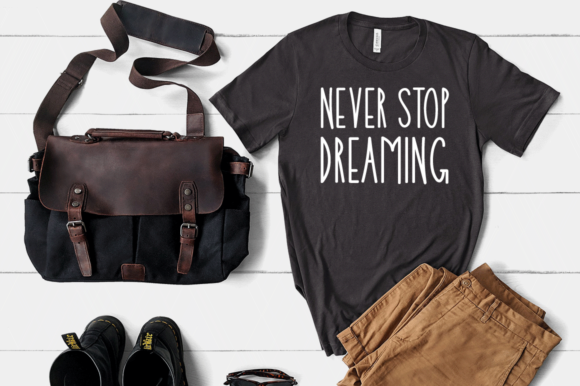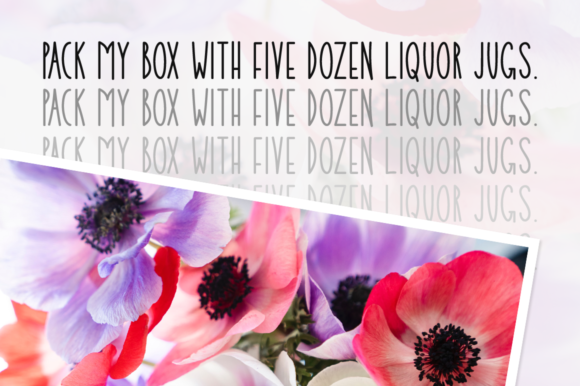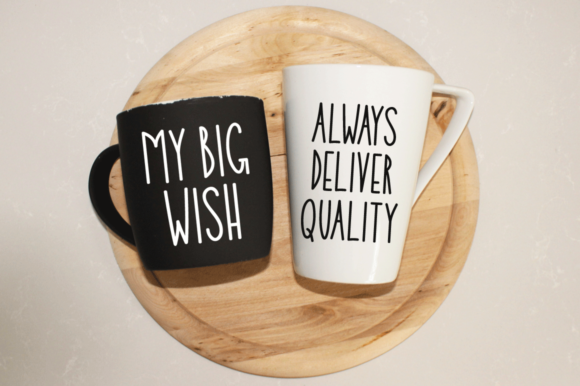
Introduction to Fresh Anemone Font
Have you ever found yourself staring at a blank design canvas, struggling to bring your creative vision to life? That’s where the magic of a high-quality font comes in – like the charming Fresh Anemone Font. This delightful display font has the power to transform your design project into a masterpiece, adding an extra layer of joy and whimsy to every detail.
As a valuable design resource, the Fresh Anemone Font is perfect for designers looking to add a unique touch to their creative projects. With its transparent background and PUA encoding, you’ll have access to a wide range of glyphs and ligatures that will take your designs to the next level. Whether you’re working on a digital or print project, this free download is sure to be a game-changer.
So why settle for a generic font when you can elevate your design with the Fresh Anemone Font? This font is a must-have for any designer looking to add a little extra magic to their work.
Key Features of Fresh Anemone Font
- High-quality design resource ideal for creative projects, offering a unique touch to your work.
- Available in a transparent background, allowing for seamless integration into your design.
- Features a beautiful, hand-drawn design that adds a touch of elegance to any project.
- Perfect for use in digital and print projects, including logos, posters, and more.
Honest Review: Fresh Anemone Font
As a designer, I’m always on the lookout for high-quality design resources to enhance my creative projects. The Fresh Anemone Font caught my eye due to its unique and playful style.
- ✨ Unique and whimsical design aesthetic that’s perfect for creating a lively atmosphere
- ✨ Highly customizable with various font sizes and styles to suit different design needs
- ✨ Great for use on transparent backgrounds, making it a versatile design resource
- ⚠️ Limited font weights and styles, which may not be suitable for complex or formal designs
- ⚠️ Not suitable for use in professional or corporate branding due to its playful and whimsical nature
Overall, I’d say the Fresh Anemone Font is a great addition to any designer’s toolkit, especially for creative projects that require a touch of whimsy. While it may not be suitable for every design need, its unique style and free availability make it a valuable resource for designers looking to add some personality to their work.
How to Use Fresh Anemone Font
The Fresh Anemone Font is a high-quality design resource ideal for creative projects. It features a transparent background, making it versatile for various applications.
Tips for Getting the Most Out of Fresh Anemone Font
To get the most out of the Fresh Anemone Font, experiment with different font sizes, colors, and combinations. Use the font to create a consistent brand identity or add a touch of elegance to your designs.
The Fresh Anemone Font is suitable for various creative projects, including wedding invitations, branding materials, and digital marketing campaigns. Its high-quality design makes it an excellent choice for professional applications.